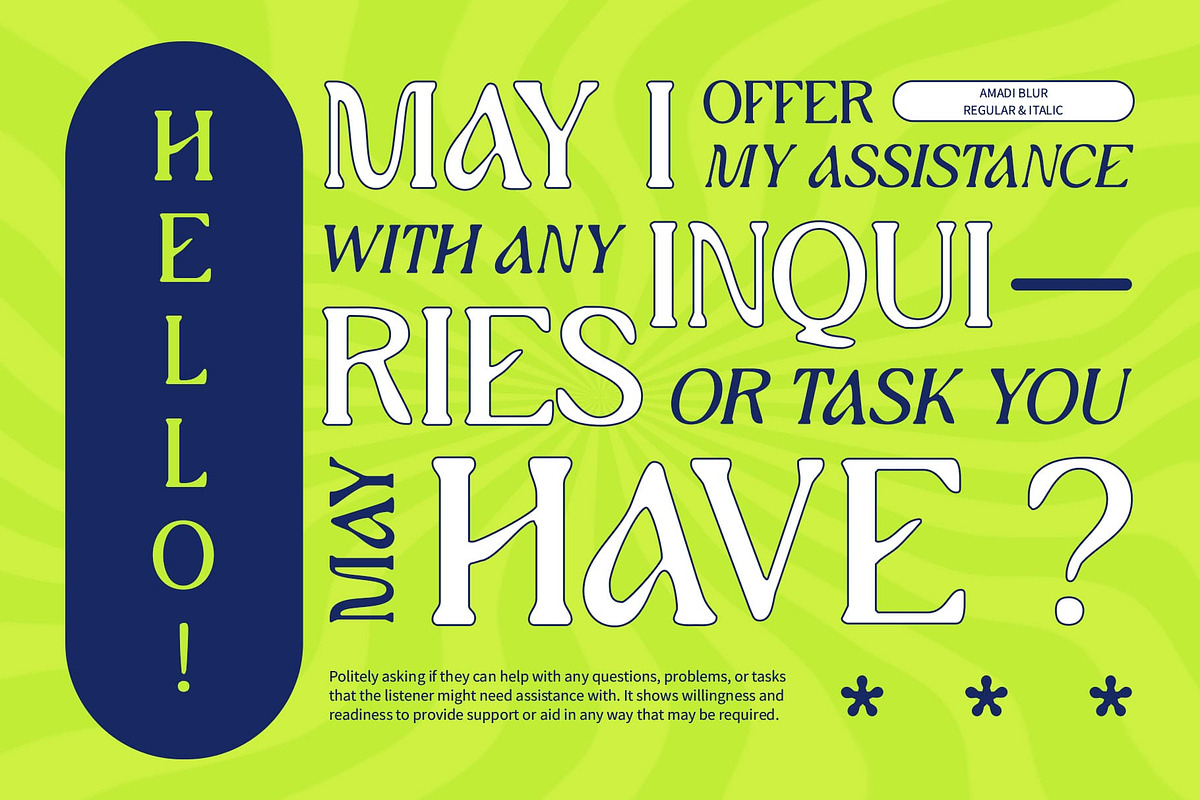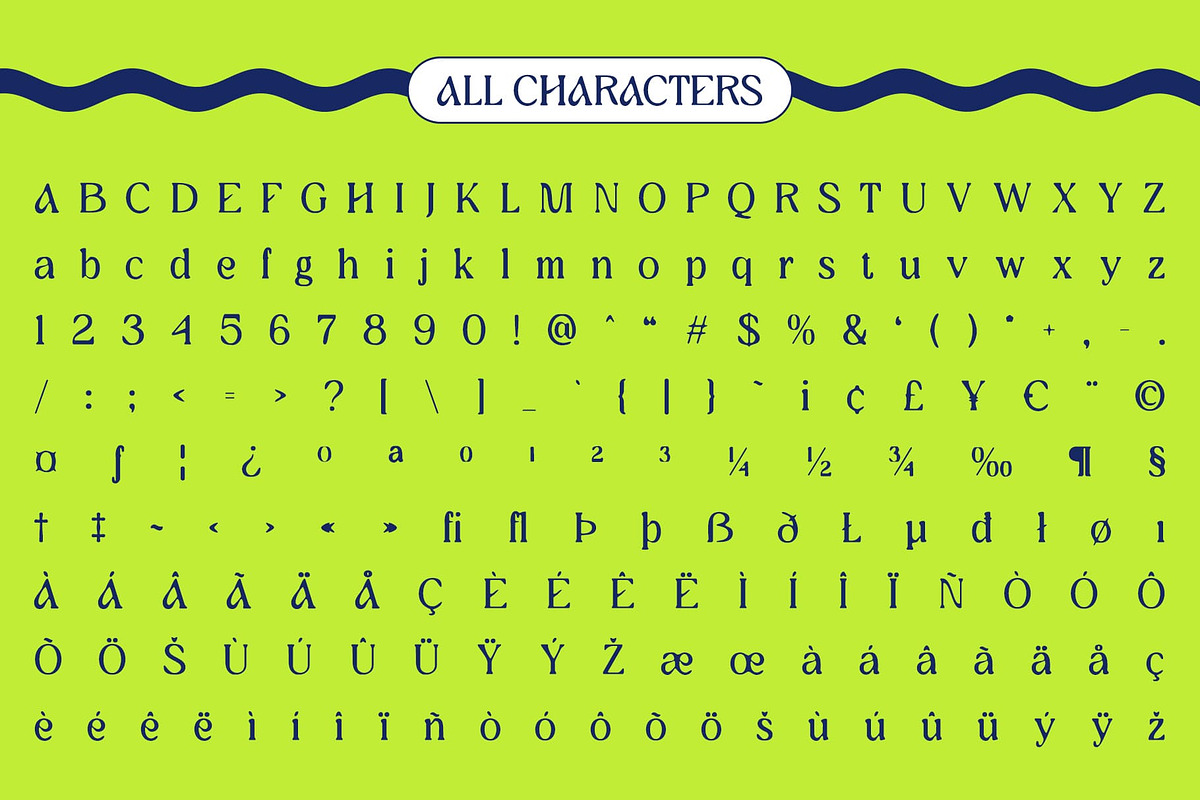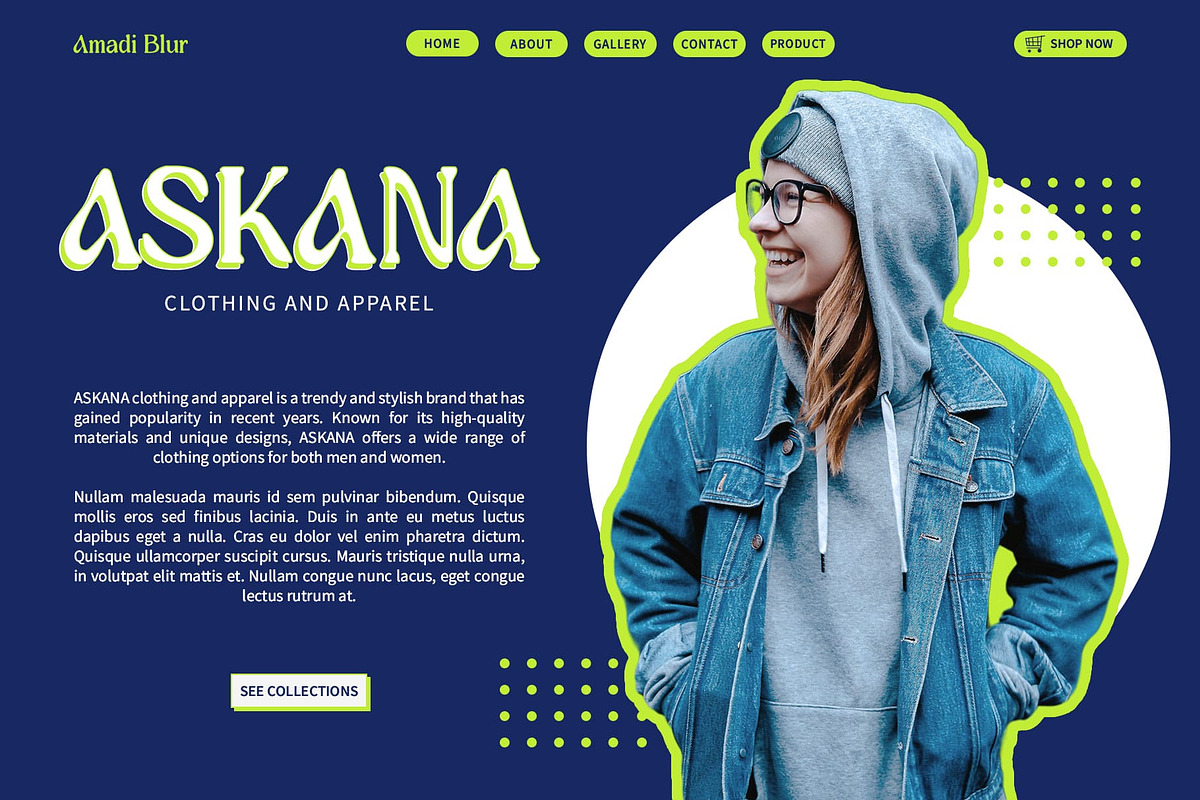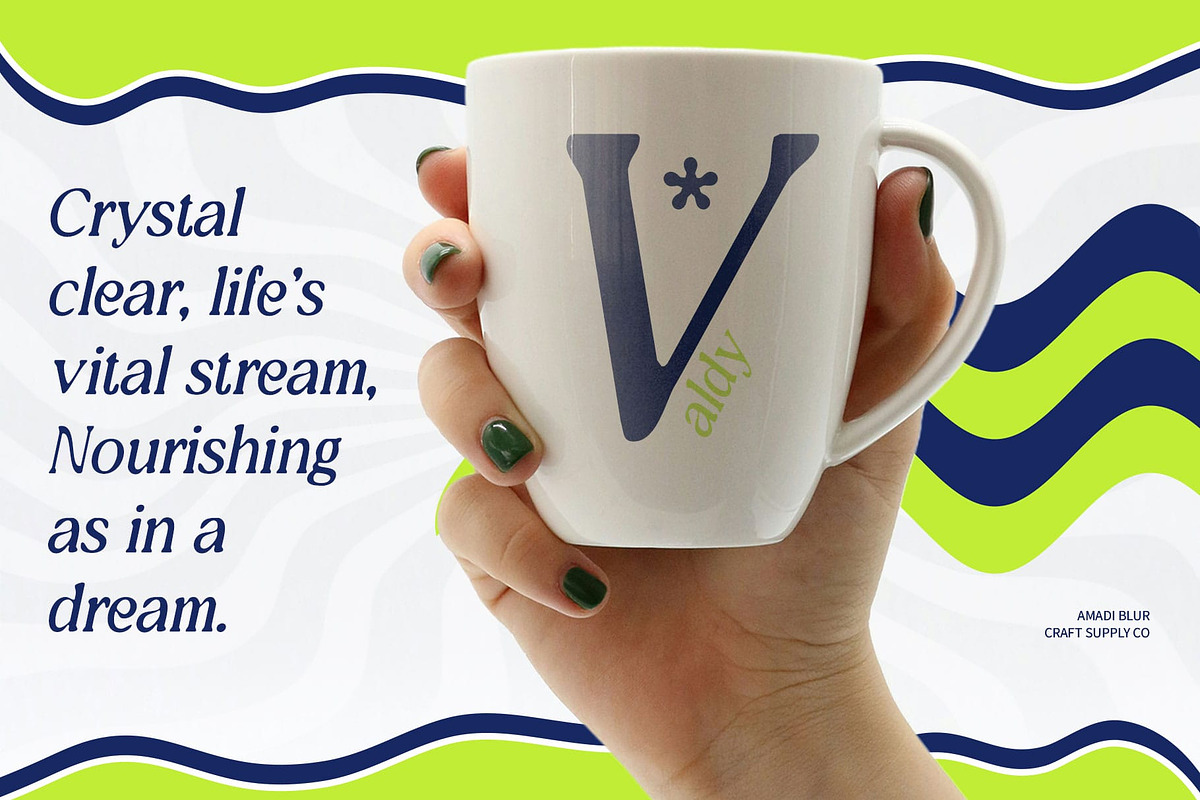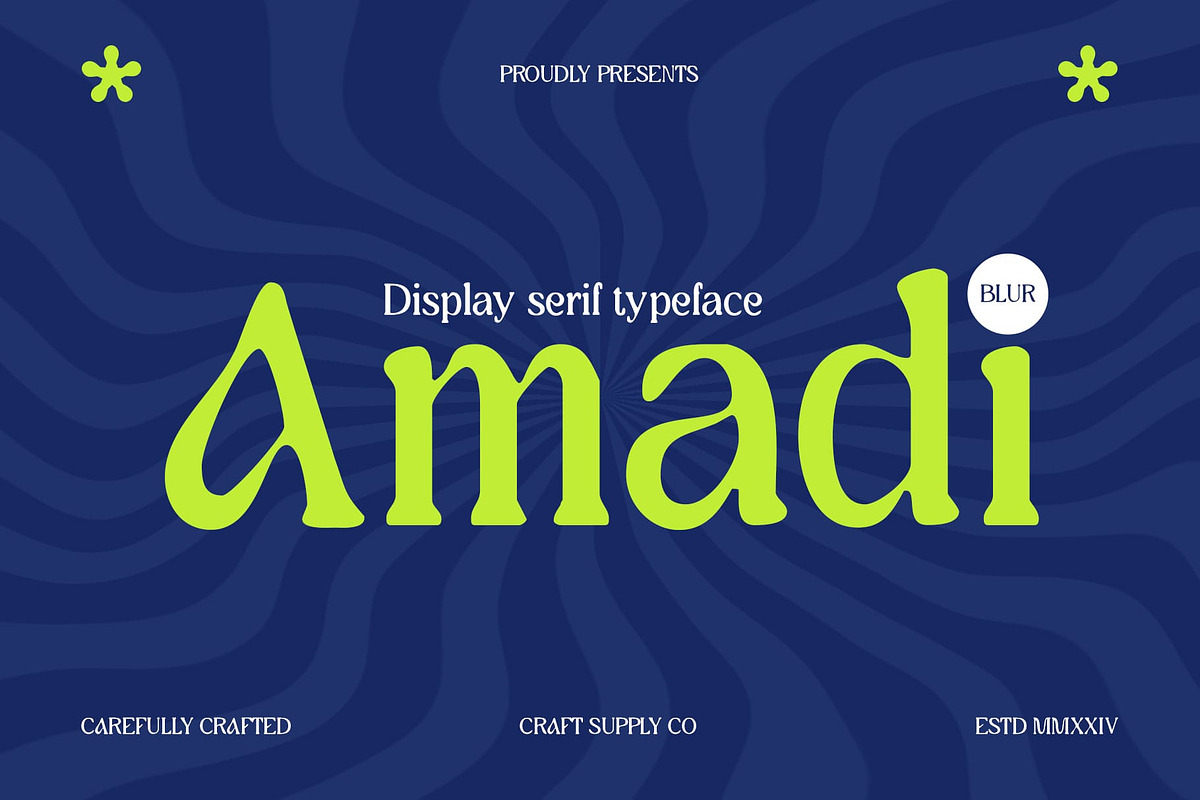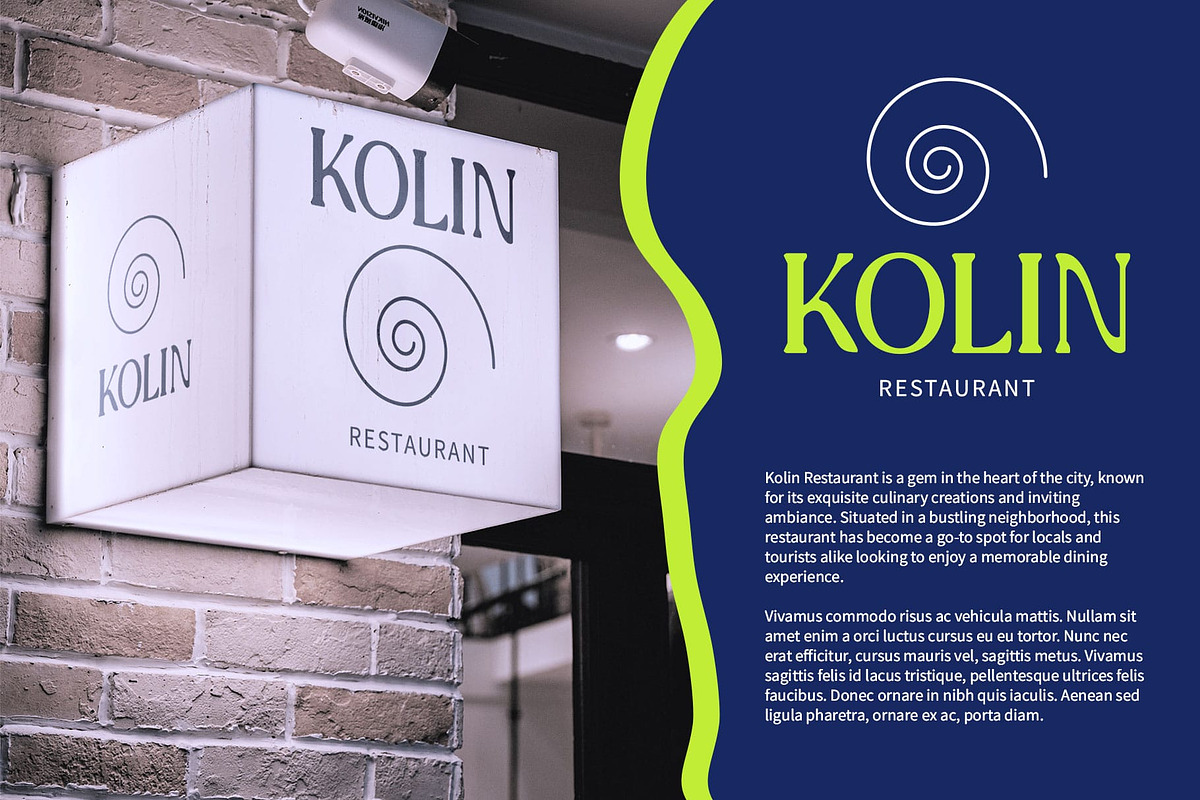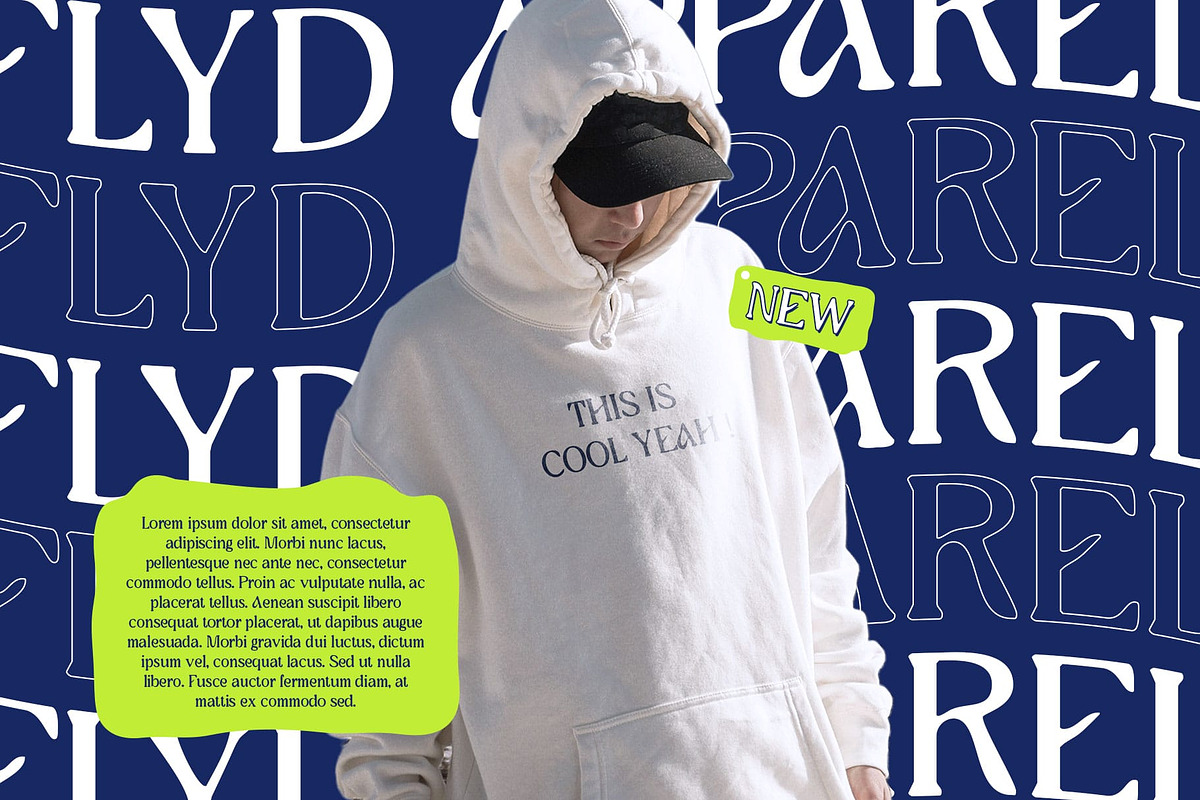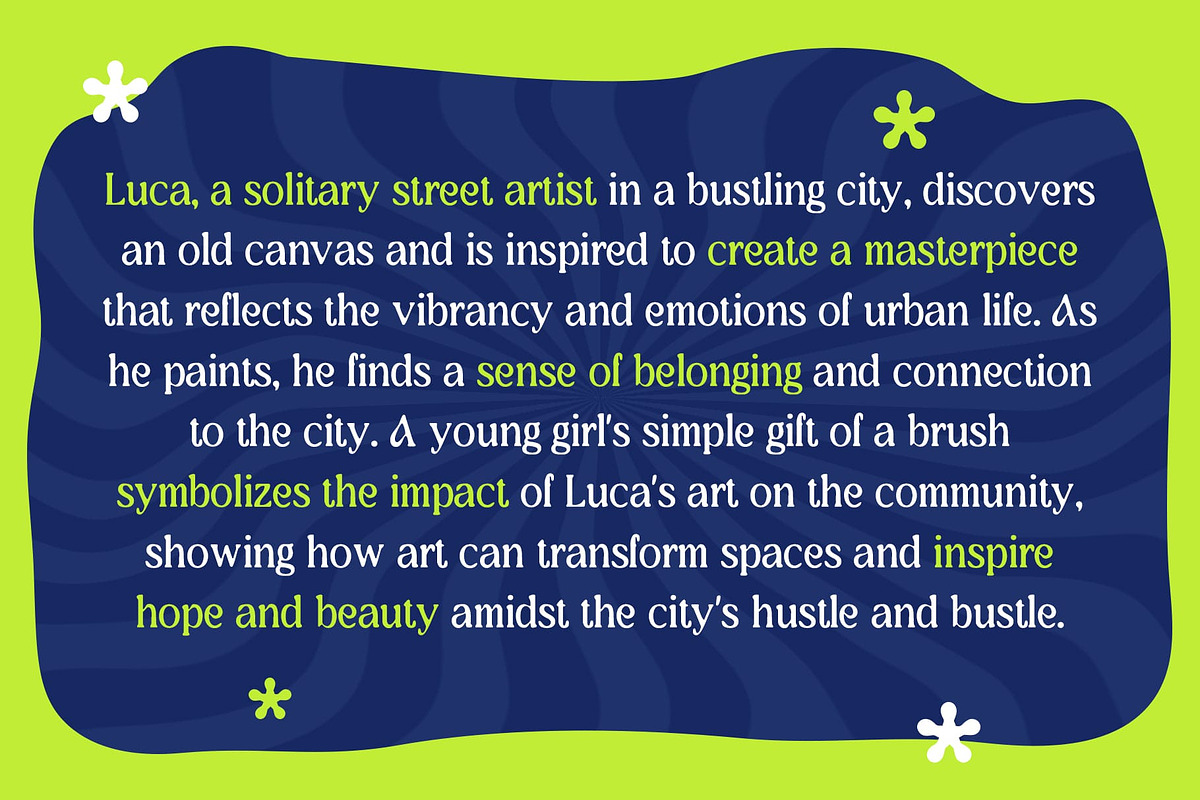
Amadi Blur
Amadi Blur: Elegance and Creativity with a Mysterious Touch
Blend of Elegance and Artistic Blur
Amadi Blur is a modern serif font with an Art Nouveau style that exudes elegance with its characteristic curved lines and artistic blur touch. The blur effect adds a unique dimension, providing a smooth and mysterious nuance.
Perfect for Elegant and Creative Designs
With its Art Nouveau styling and blur effect, Amadi Blur is perfect for designs aiming to highlight elegance and creativity. This font ensures your projects stand out with a blend of sophistication and artistic flair, making it suitable for various applications requiring a classy and innovative aesthetic.
Ideal for Wedding Invitations and Luxury Branding
Amadi Blur enhances designs such as wedding invitations and luxury branding, providing a refined and artistic appeal. Its blur effect adds a modern twist, ensuring your designs convey sophistication and creativity while maintaining a timeless elegance.
Versatile for Art Posters and Promotional Materials
Versatile and visually striking, Amadi Blur adapts seamlessly to various creative projects, including art posters and promotional materials. Whether used in digital or print media, this font provides a sophisticated and modern appeal that enhances the overall impact of your designs.
- Amadi Blur Regular
- Amadi Blur Italic